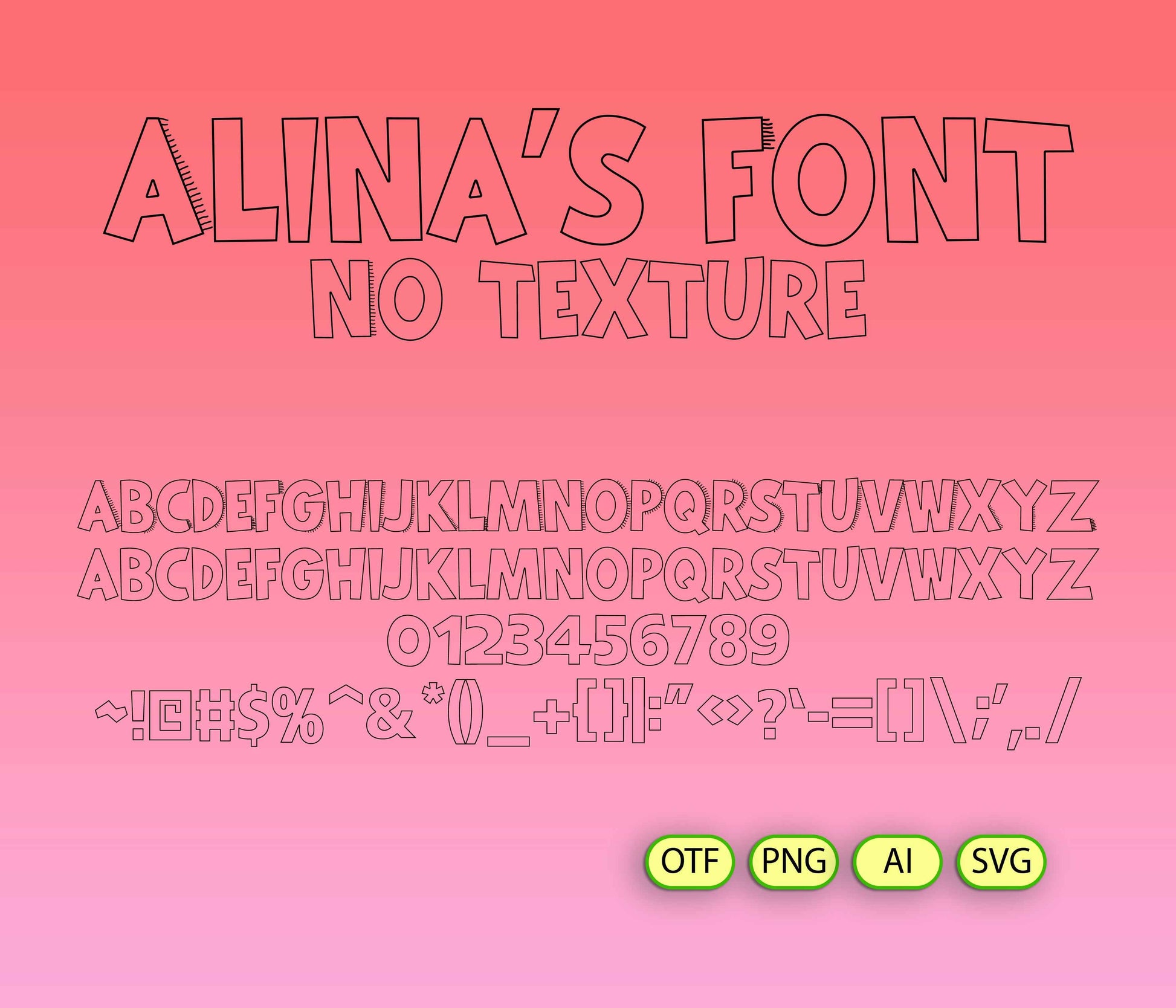
Sibling Central Font
Step into the wild world of eleven kids and one bathroom with our specially designed font, capturing the essence of organized chaos and everyday adventures. Perfect for fans, animators, event organizers, and designers, this font brings the lively, heartwarming spirit of family dynamics to your projects. Create event invitations, themed merchandise, or digital content with the energetic vibe of this animated family phenomenon.
Our Sibling Central font features vibrant, energetic characters reflecting the controlled chaos of large family life. Ideal for:
Our Sibling Central font includes clean and styled variants, ensuring compatibility with all software, including Canva. This feature allows easy incorporation into designs for users of all skill levels.
Our font pays tribute to the beautiful chaos of big family dynamics, empowering your designs with its heartwarming and energetic spirit. Whether crafting promotional materials, designing merchandise, or adding a familial touch to personal projects, this font communicates the beloved essence of sibling relationships. Ready to inject some family spirit into your creations? This font is your key to vibrant, impactful design.